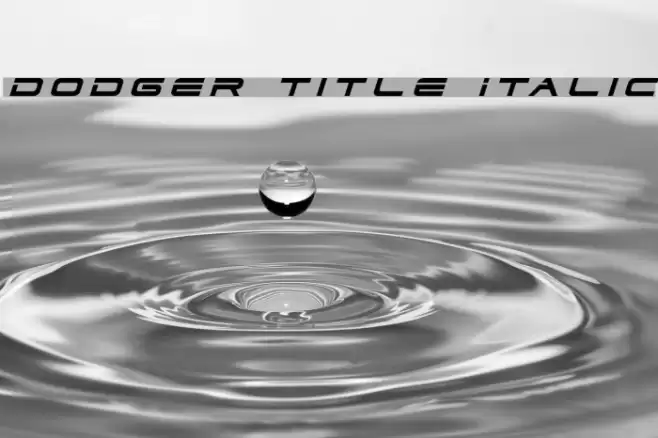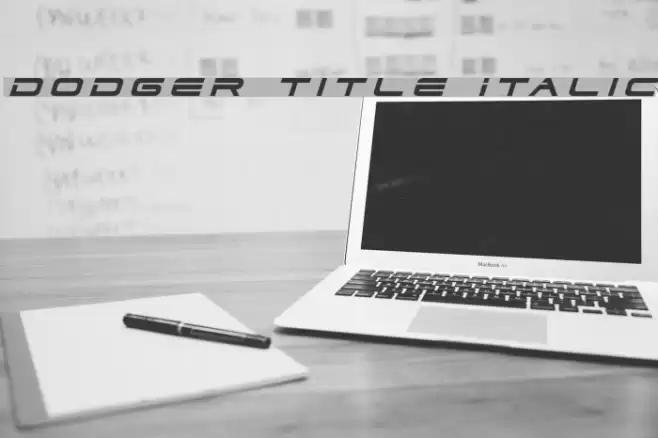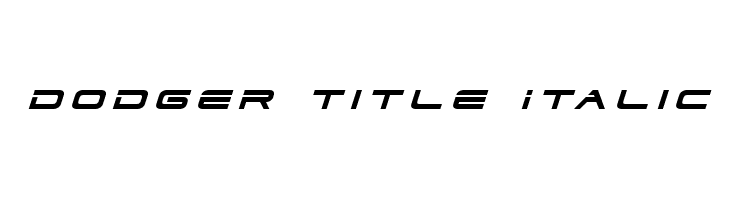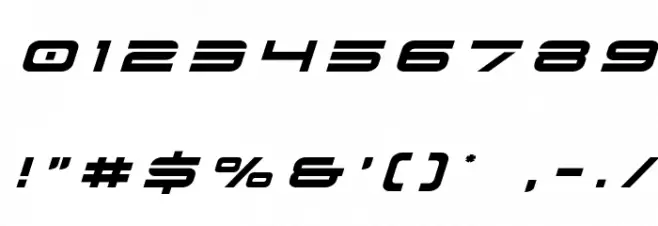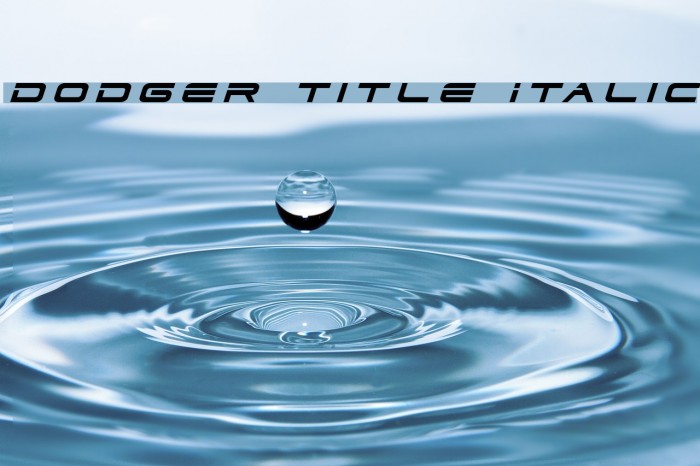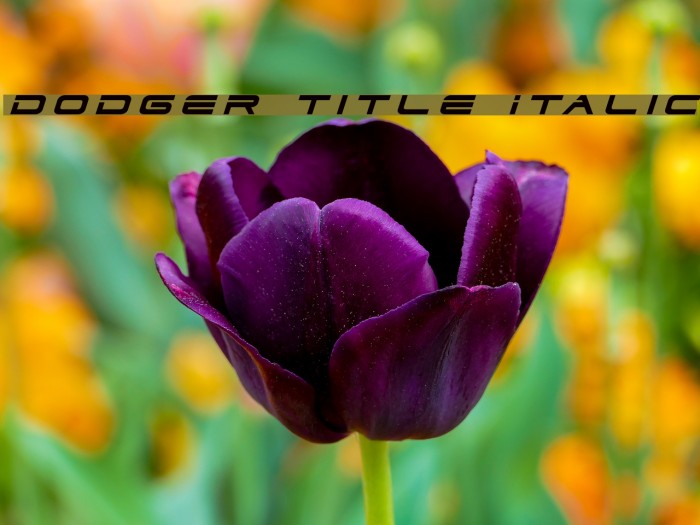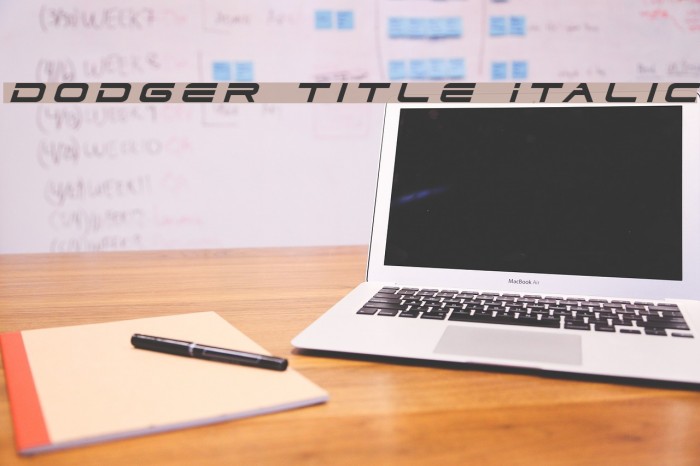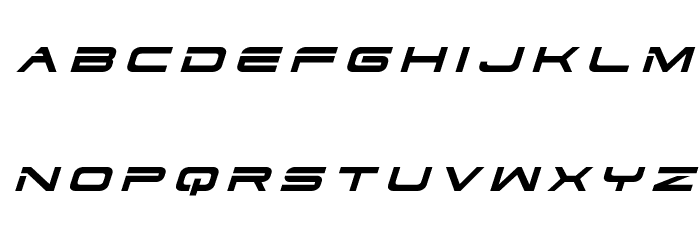
Dodger Title Italic Font
Dodger Title Italic Description
This font features a sleek and modern italic style with a futuristic touch. The characters are slightly slanted, giving a sense of motion and speed. The design is clean with sharp edges and a geometric structure, making it ideal for contemporary projects. The uppercase and lowercase letters maintain a consistent style, while the numerals and special characters are designed to complement the overall aesthetic. The font's unique look makes it suitable for technology-related themes, sports branding, and dynamic visual identities.
A sleek, modern italic font with a futuristic and dynamic style from Uncategorized fonts.
- Proposed Projects: Ideal for technology branding, sports logos, dynamic posters, and modern web design.